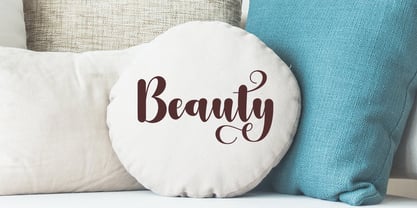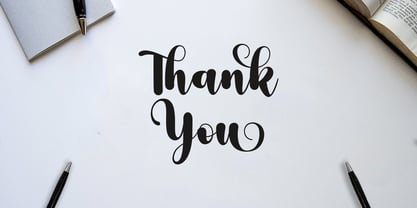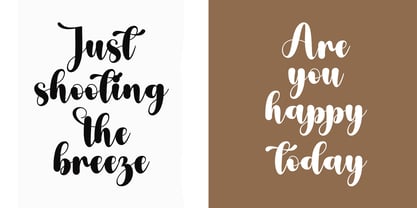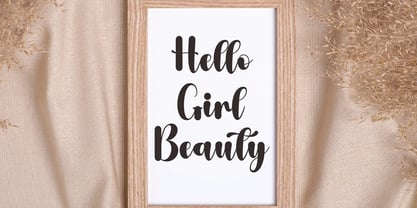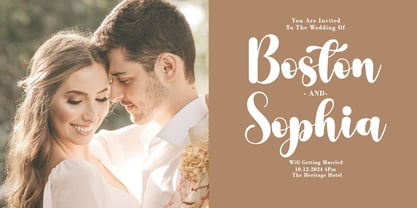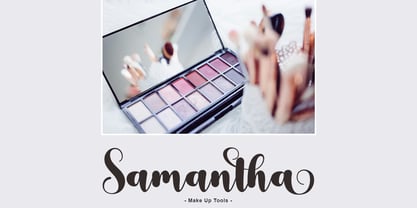
Daylight Script
by Good Design
The Daylight Script Font Family was designed by Agus Pujiyono and published by Good Design. Daylight Script contains 1 styles. More about this family
Daylight Script A new fresh and modern hand lettered font with decorative characters and a dancing baseline. Daylight Script was inspired by clean handwriting with a natural flow, and it features fabulous beginning and ending lowercase swashes as well as lowercase heart swashes. It is perfect for a wide range of designs, including wedding stationery, Instagram quotes, modern logos, packaging, websites, and more. So beautiful on invitation like handicraft, greeting cards, branding materials, business cards, quotes, posters, and more design concepts.
Designers: Agus Pujiyono
Foundry: Good Design